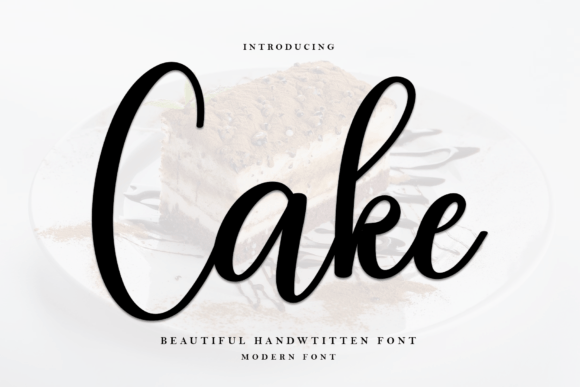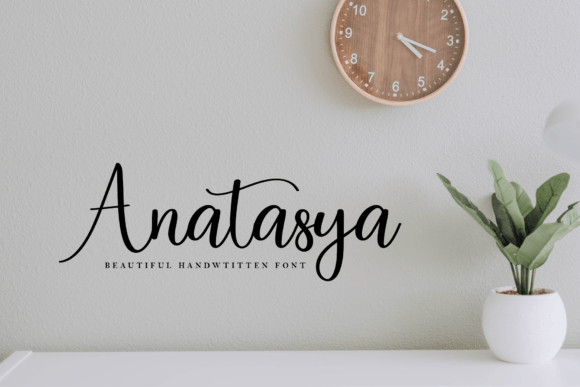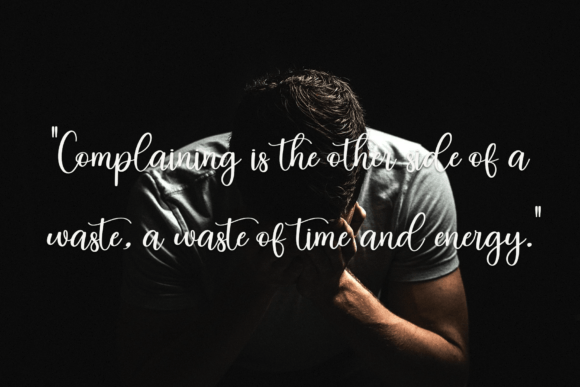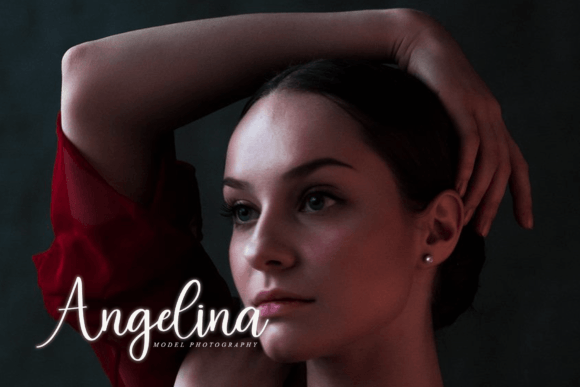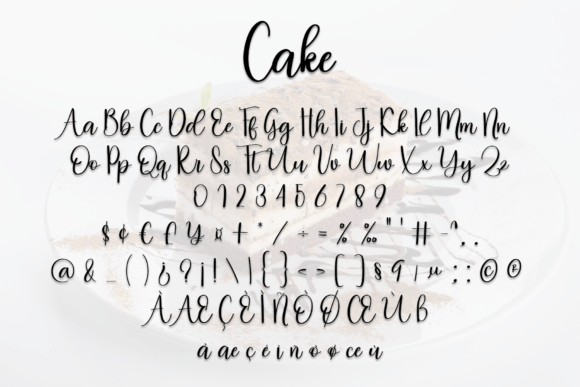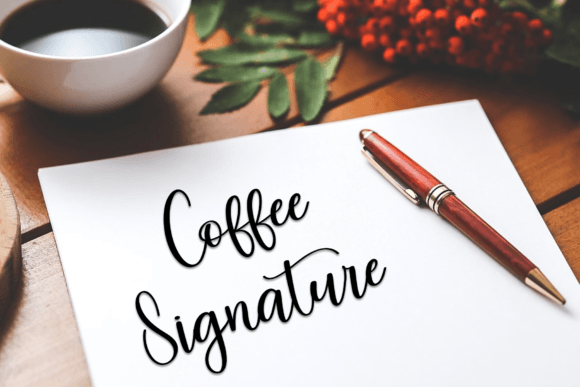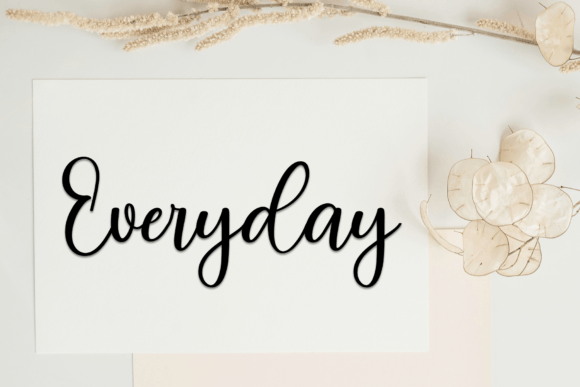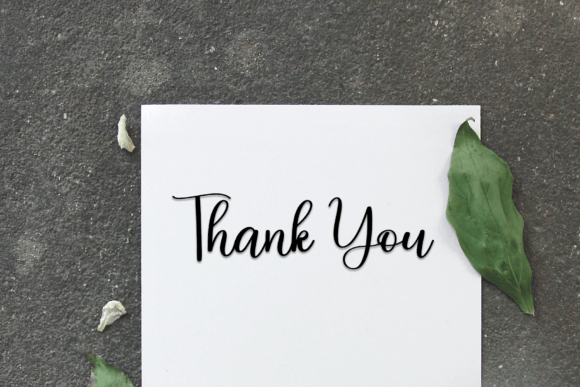
Cake Font
About Cake Font
Cake is a meticulously crafted handwritten font that embodies delicacy and uniqueness. Its elegant and charming design makes it a perfect choice for a wide array of creative applications, including letters, invitations, food products, titles, and more. Whether you’re designing a wedding invitation, a menu for a bakery, or creating eye-catching titles for your projects, Cake adds a touch of sophistication and creativity to your text.
The font’s delicate strokes and graceful curves create a sense of elegance, making it ideal for projects that require a refined and polished appearance. Its versatility allows you to use it in various contexts, enhancing the visual appeal of your designs and adding a personalized touch.
Cake’s carefully crafted design ensures that each letter is visually pleasing, making it suitable for both digital and print applications. Its unique charm lies in its ability to convey a sense of craftsmanship and individuality, making your text stand out and leave a lasting impression.
Embrace the delicacy and uniqueness of Cake and let it enhance your designs. Whether you’re working on invitations, labels, or any other creative project that demands a cool and distinctive font, Cake is sure to add a touch of sophistication and elegance. With its carefully crafted details, this font is the perfect choice to elevate your design and create a memorable visual experience for your audience.